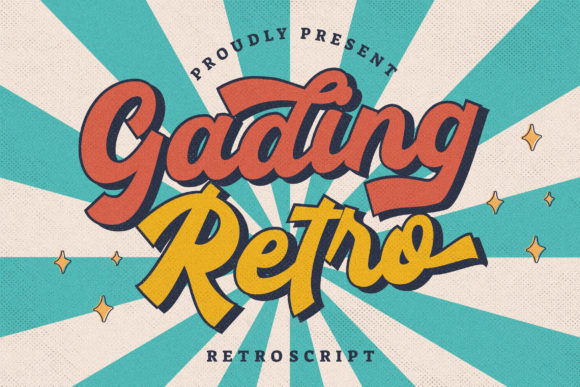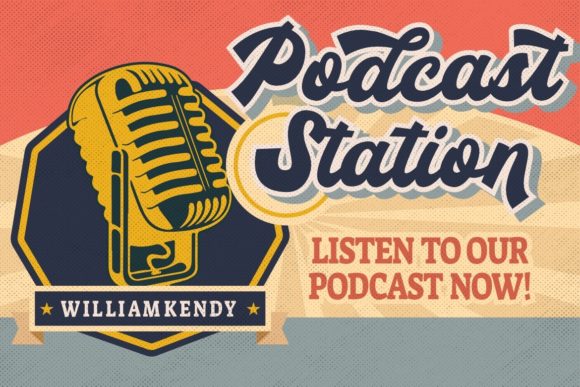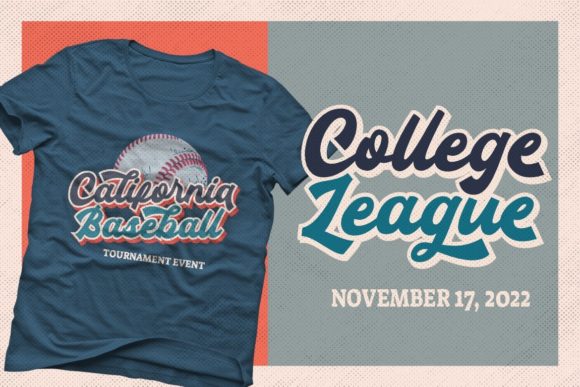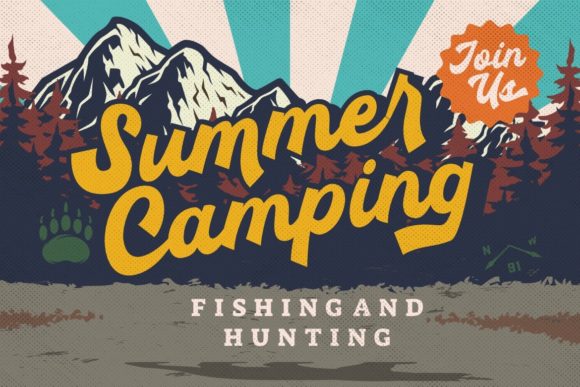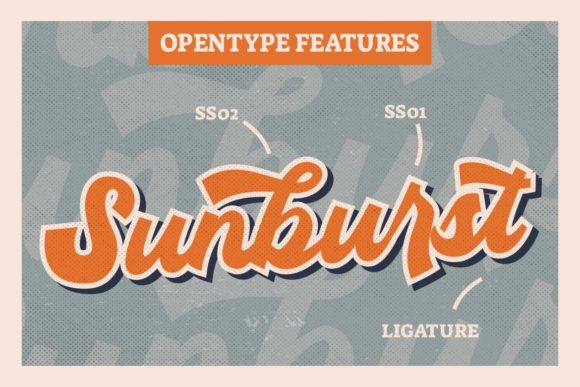
Gading Retro Font
About Gading Retro Font
Gading Retro is a gorgeous and bold handwritten font, crafted to give your headlines and logotype projects a stylish touch. This font reads as strong, confident, and dynamic and can add tons of nostalgic character to your designs. Gading Retro is PUA encoded which means you can access all of the glyphs and swashes with ease!